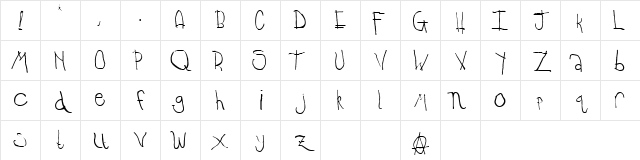
Temple Regular
Design Context for Temple
Temple is a composed and adaptable typeface that performs quietly and consistently across a wide range of design contexts.